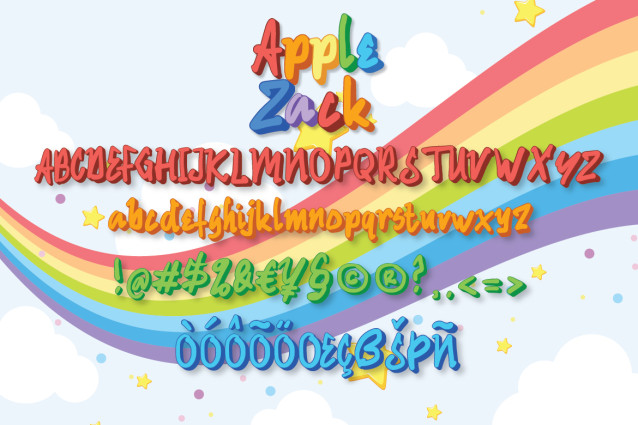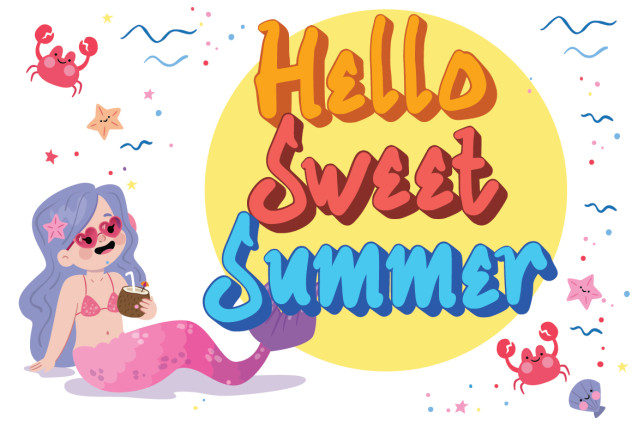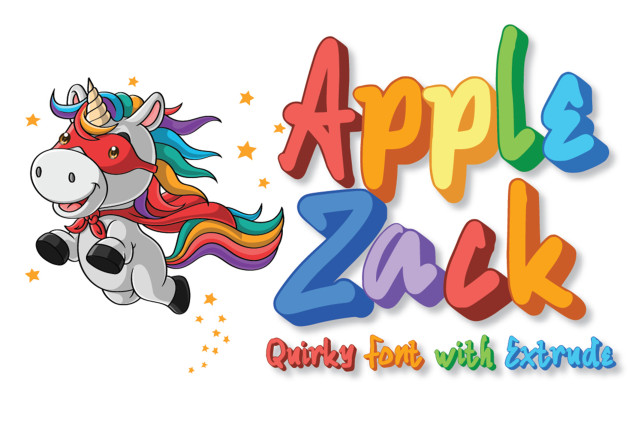
Applezack Font
Applezack Font a sweet and friendly handwritten font. Cute and fun, this font is ideal for writing wedding invitations, cards, or any other design that might need a fun touch!